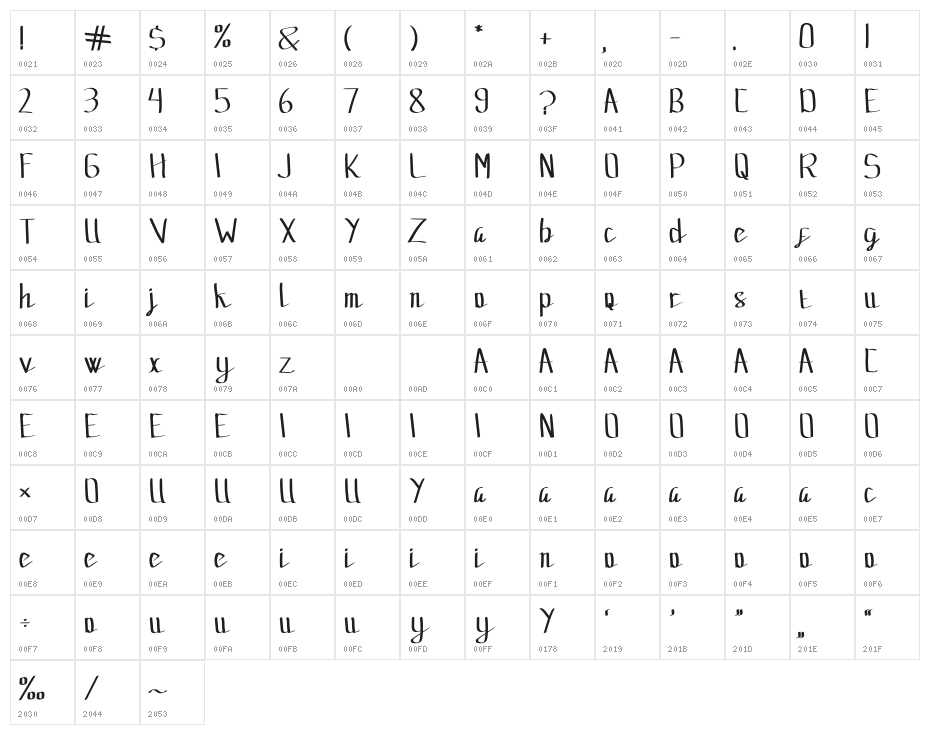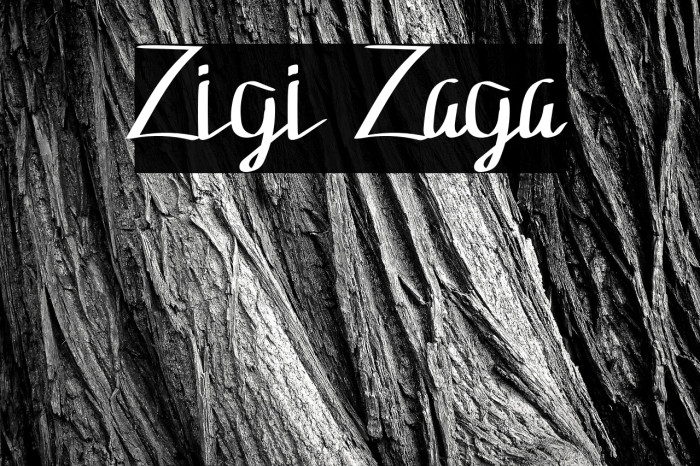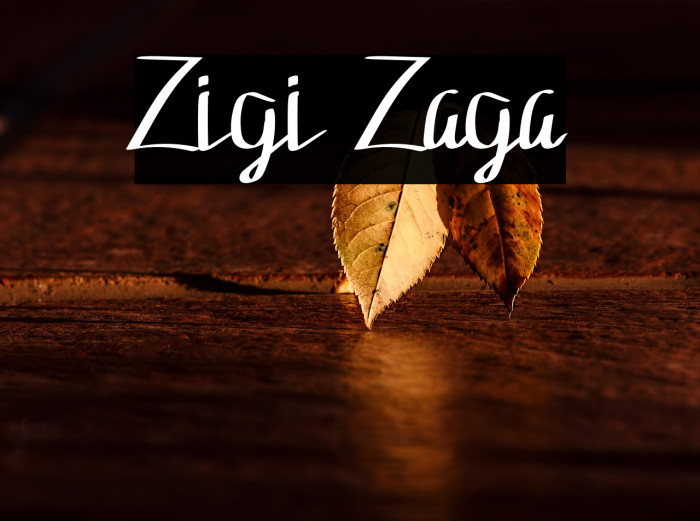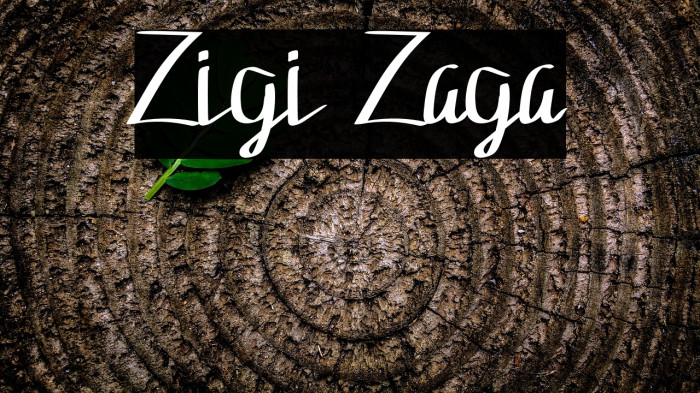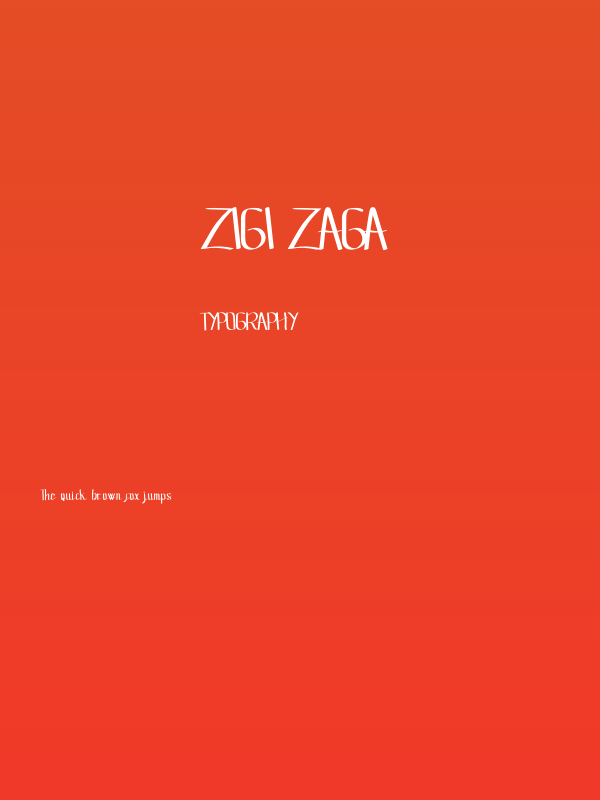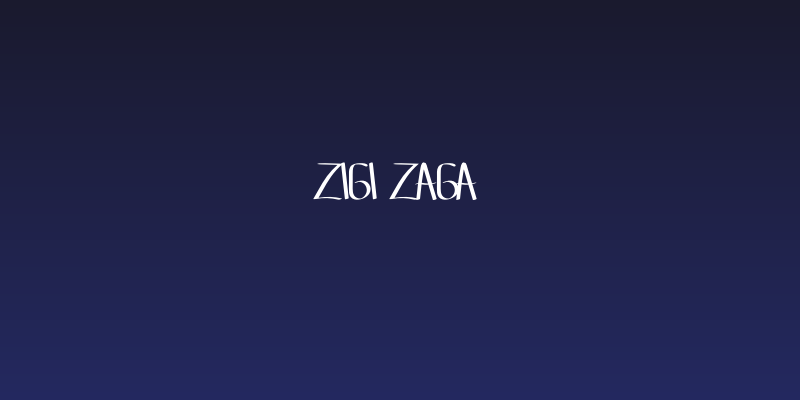
Zigi Zaga Font
Zigi Zaga Description
This font features a playful and dynamic style with a zigzag pattern that gives it a unique and energetic appearance. The letters are characterized by their irregular, hand-drawn strokes, which vary in thickness, adding to the font's whimsical charm. The uppercase letters are bold and slightly elongated, while the lowercase letters maintain a consistent flow with a slightly condensed form. The numbers and special characters follow the same playful design, making the font suitable for creative and informal projects. The overall design is both eye-catching and approachable, perfect for adding a touch of fun to any text.
Overall StylePlayful, Whimsical
Proposed ProjectsIdeal for children's books, playful branding, event posters, and creative social media graphics.